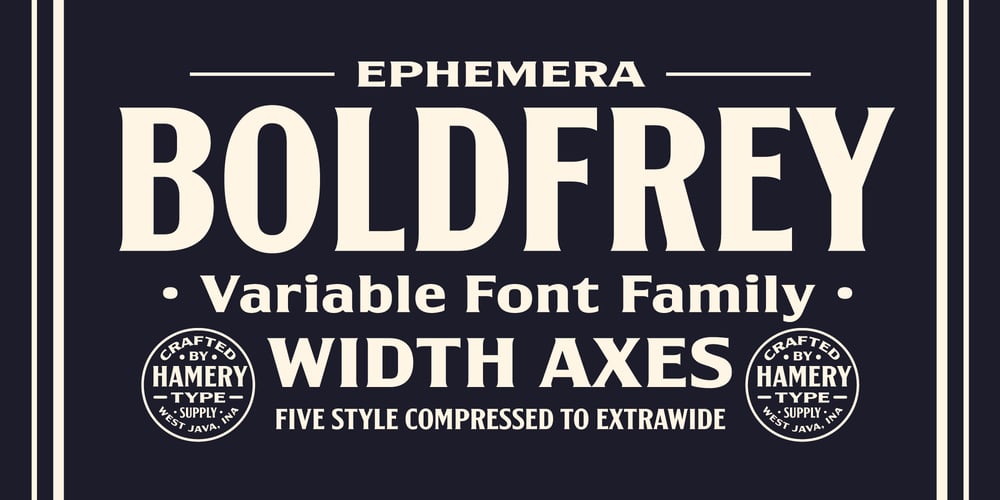
EFCO Boldfrey
EFCO Boldfrey font
EFCO Boldfrey Font Family was designed by Ilham Herry and published by Ilham Herry. EFCO Boldfrey contains 6 styles and family package options. Inspired by vintage labels where there are many types of style in one design label, that’s why Boldfrey came up with 6 styles, compressed to superwide for mixing and match each other for design needs. Boldfrey is also available in variable font format. Opentype features with stylistic character, lining figure, and ligature in Co. and LTD.Suitable in display needs, such as headline, logo, T-shirt, signage, poster, etc